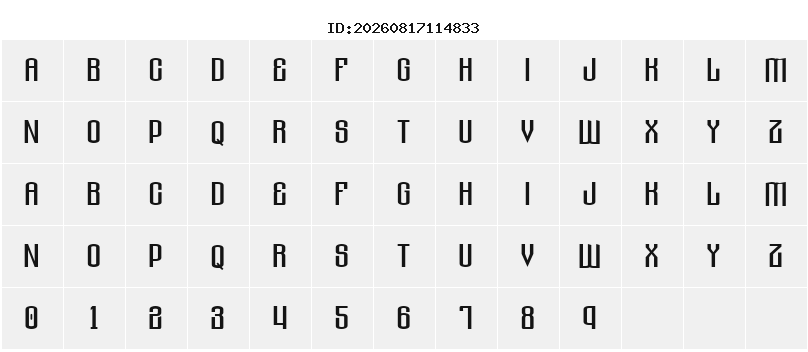
Solace for Sadist Preview
• Font Name: Solace for Sadist
• Designer: Chris Vile
• Manufacturer: Font Monger
• Description: Solace for Sadist Regular is a font by Font Monger, designed by Chris Vile in 2016.
About Solace for Sadist.ttf
Solace for Sadist.ttf is a modern, elegant sans-serif font designed for ultimate readability and visual harmony. Perfect for branding, headlines, web design, and print materials.